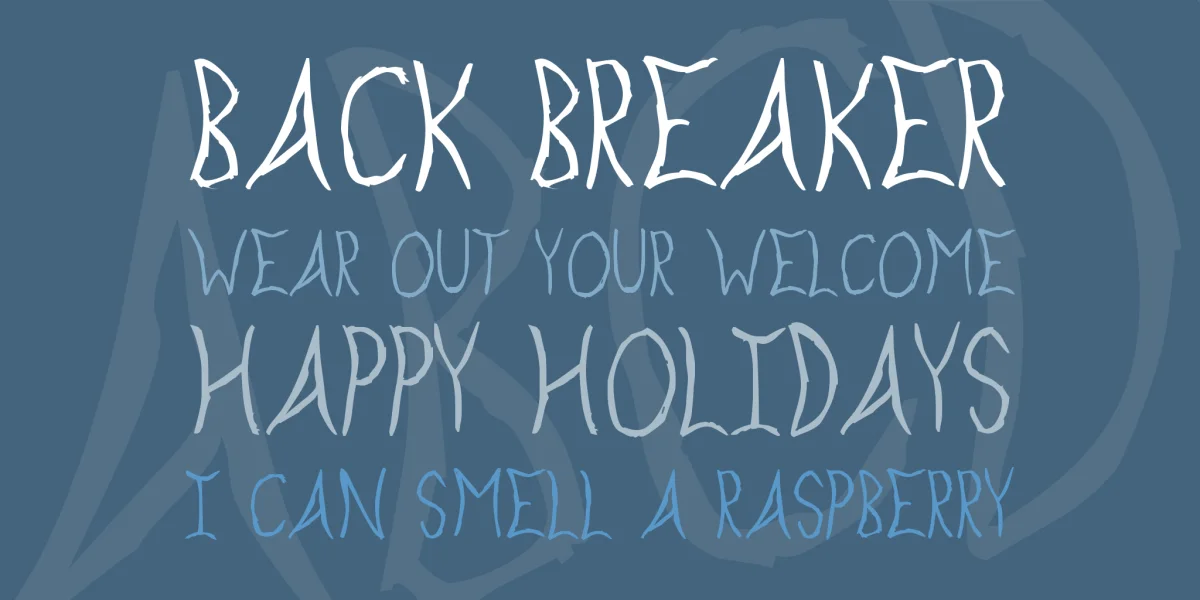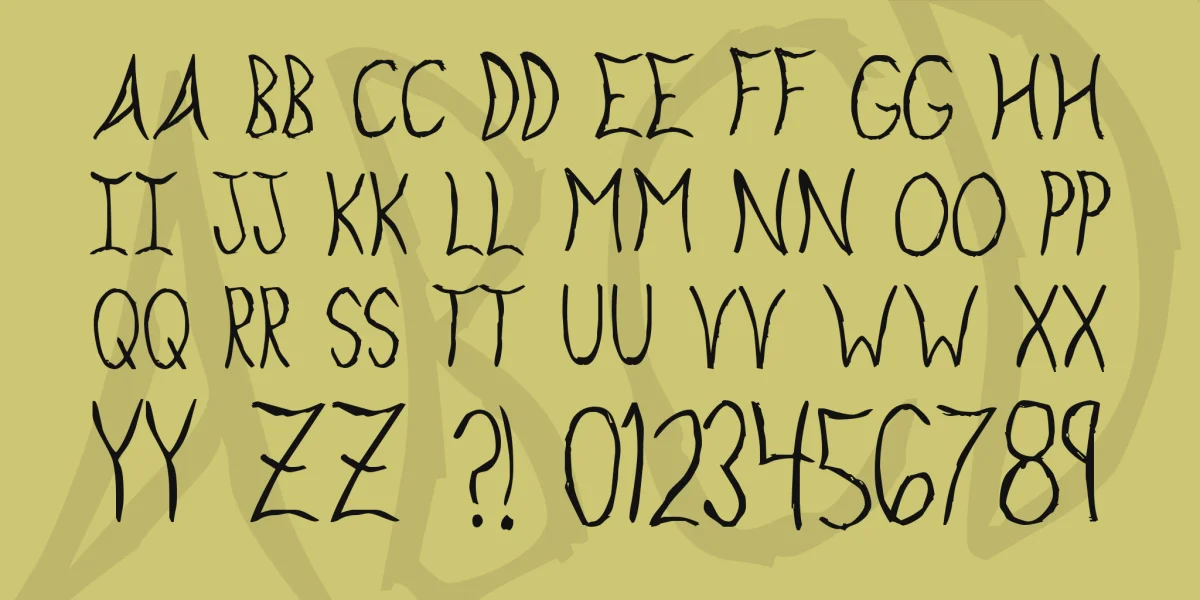
This version includes upper letters, numbers, and some punctuation. I also included some new UA Type dingbats (just to amuse myself, and so you don't get those annoying boxes when you type something that isn't in the font).
I have a Feedback page on my site, and I ask people if they have any new ideas for fonts. One person asked for "tall, grungy things." Well, I had drawn out this alphabet some time before, but not done anything with it. So, I figured out it was kinda tall, and it would be grungy if I did it right.
The name comes from a screen saver I have where the sheep start to jump around, then when they get high enough, the explode on the ground. Sounds violent, you say? Well, it sorta is, but in a humorous kind of way.